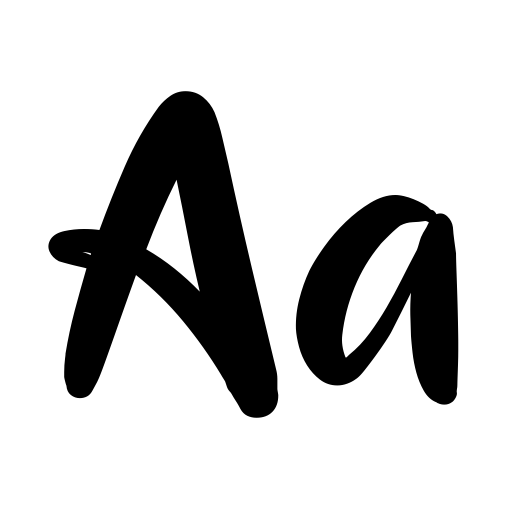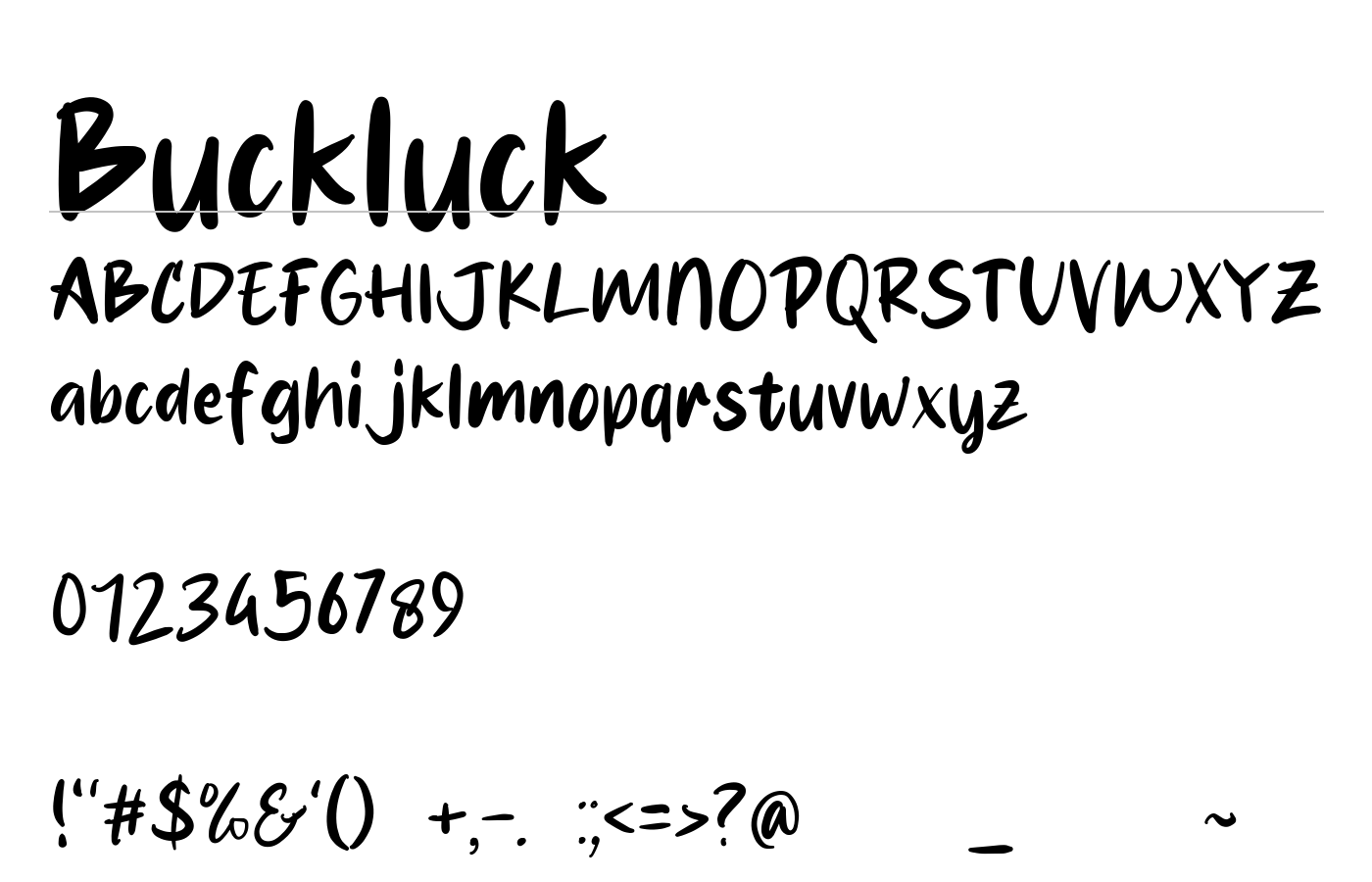
Buckluck is a playful and casual handwritten font with a bold, slightly irregular style that feels friendly and dynamic. Its tall x-height and rounded strokes give it great readability and charm, making it ideal for creative branding, informal headlines, and fun packaging designs. This font brings an approachable, energetic vibe perfect for projects that want to convey warmth and personality.
Buckluck Font
About Buckluck Font